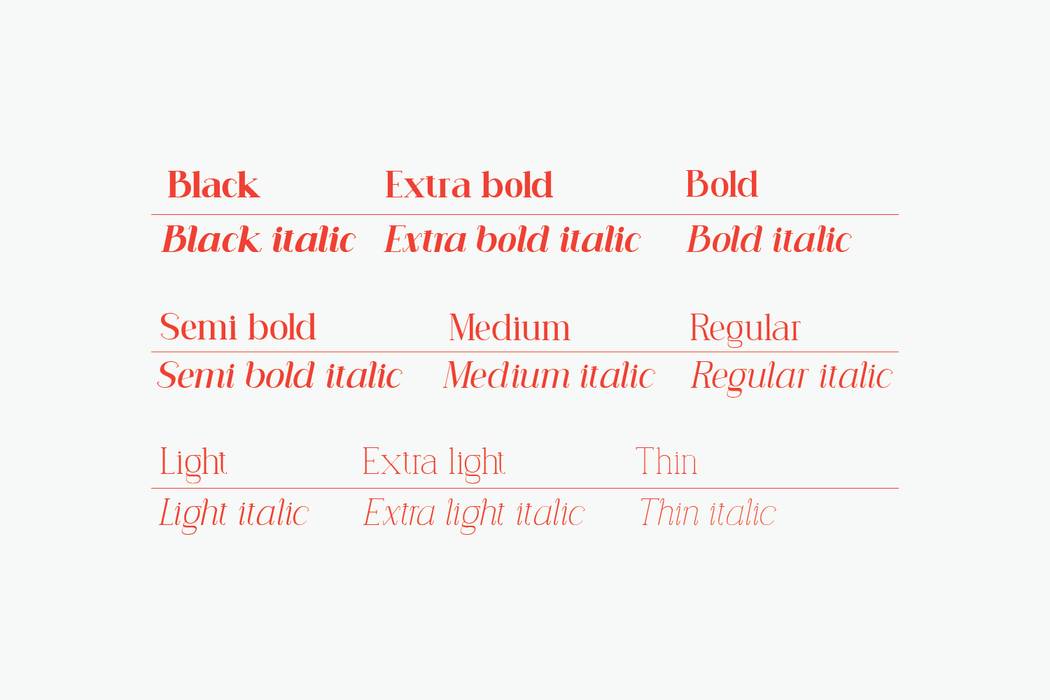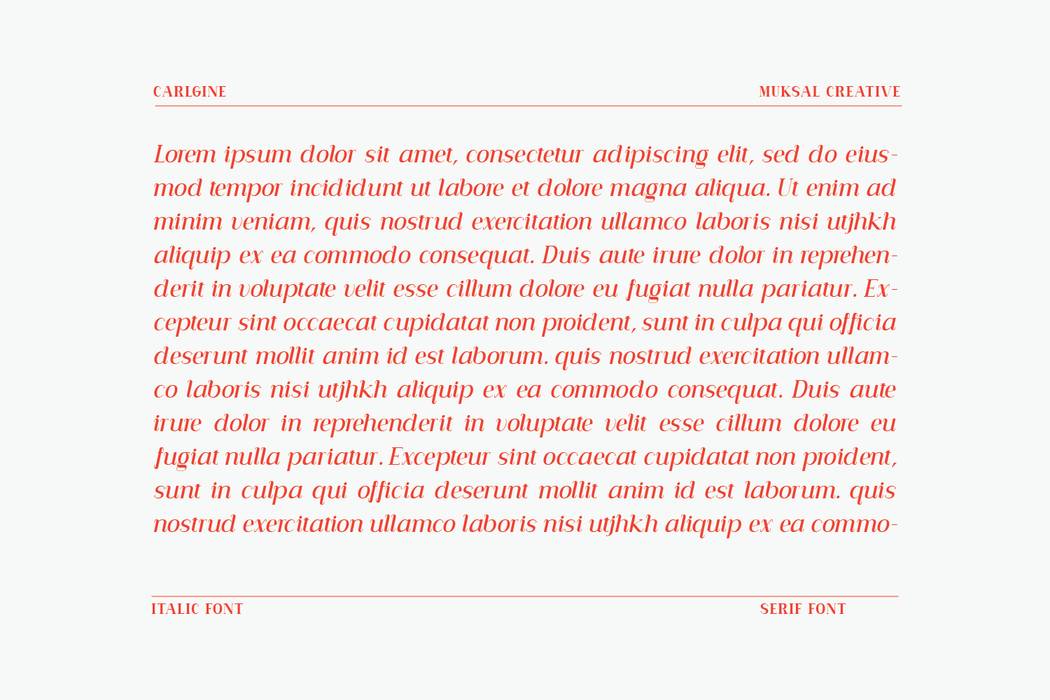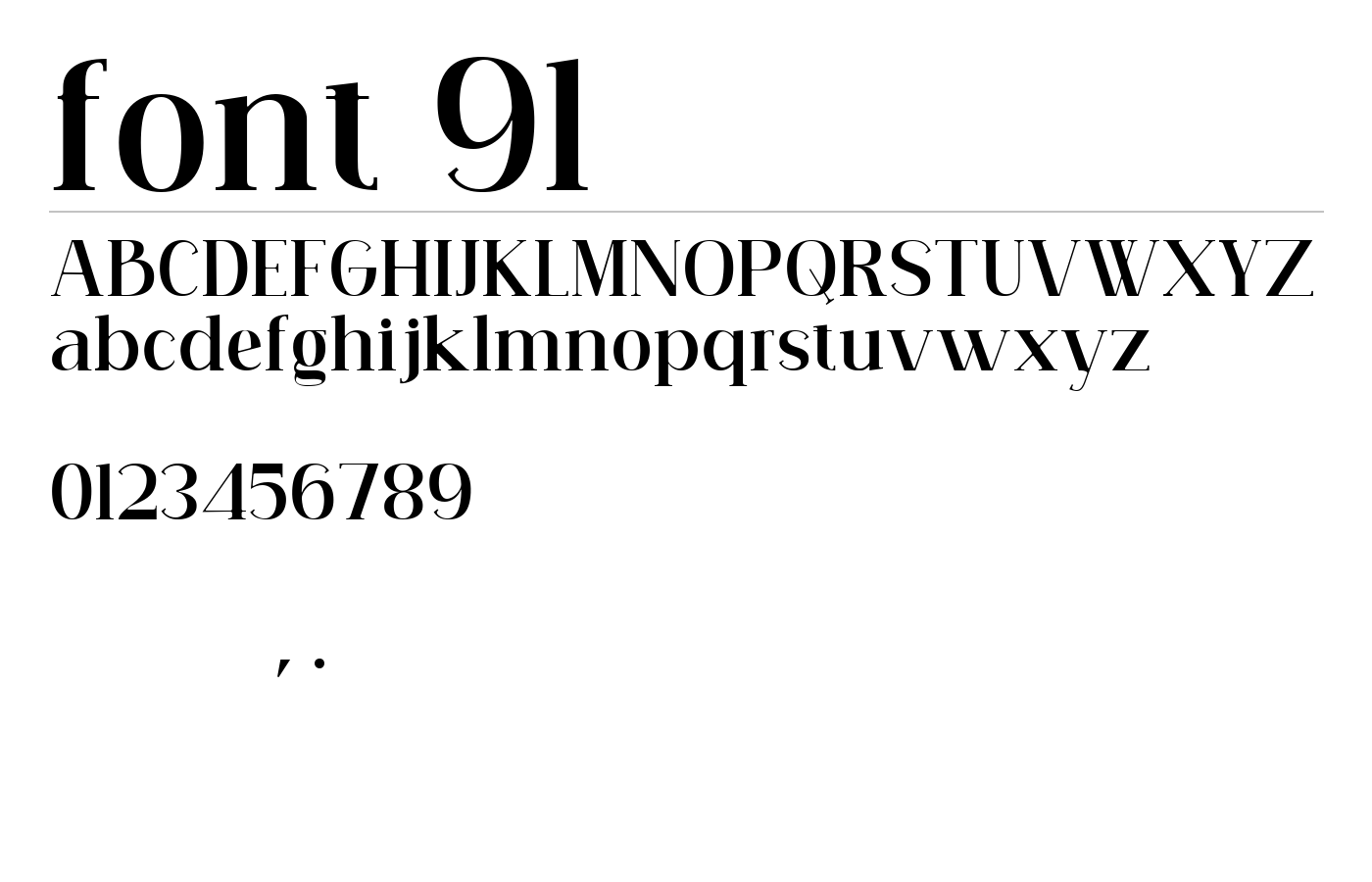
Carline is an elegant serif font featuring high contrast between thick and thin strokes and slender, bracketed serifs that give it a refined, classic feel. Its tall x-height paired with vertical stress and distinctive letterforms, like the single-story 'g' and sharp terminals, make it ideal for upscale branding, editorial headlines, and stylish packaging where a sophisticated, timeless look is desired. This font works best in display settings where its graceful details can shine, adding a touch of luxury and modernity to any design.
Carline Font
About Carline Font
| Font family | Carline Font |
| Release date | 2022-12-22 |
| Designer | Muksal Creative |